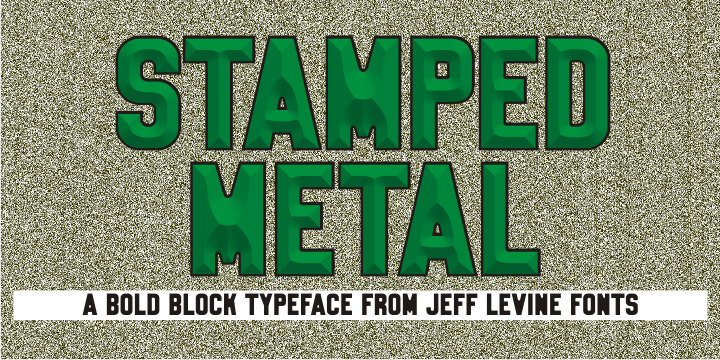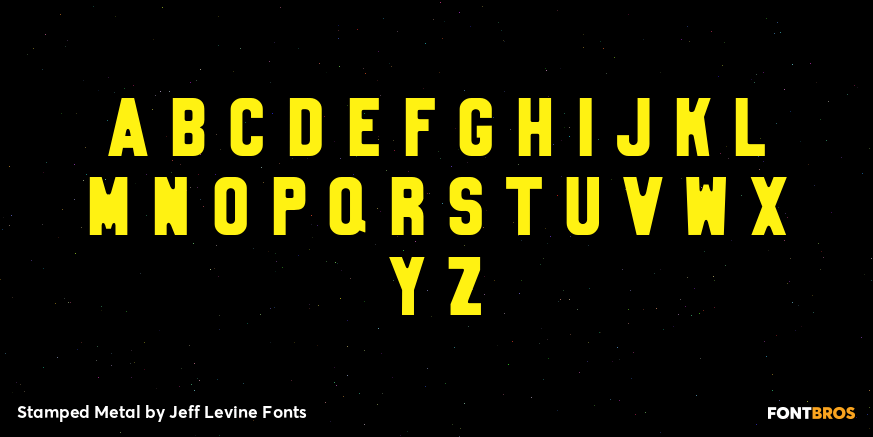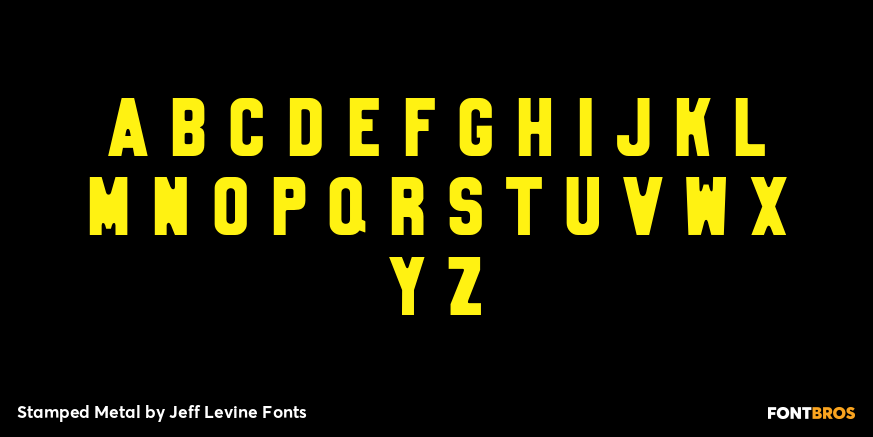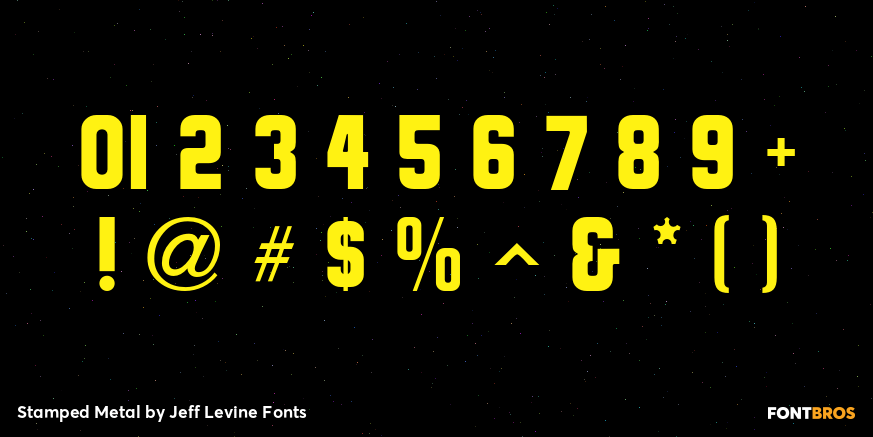
Stamped Metal
Online auctions offer a myriad of unique, vintage and novel lettering devices – all which are fertile ground for typographic inspiration.
In this instance, a set of stamped metal letters for outdoor signage was the basis for Stamped Metal JNL. Some of the non-traditional letter weights makes these simple block letters a wonderful change of pace for bold, attention-getting headlines.